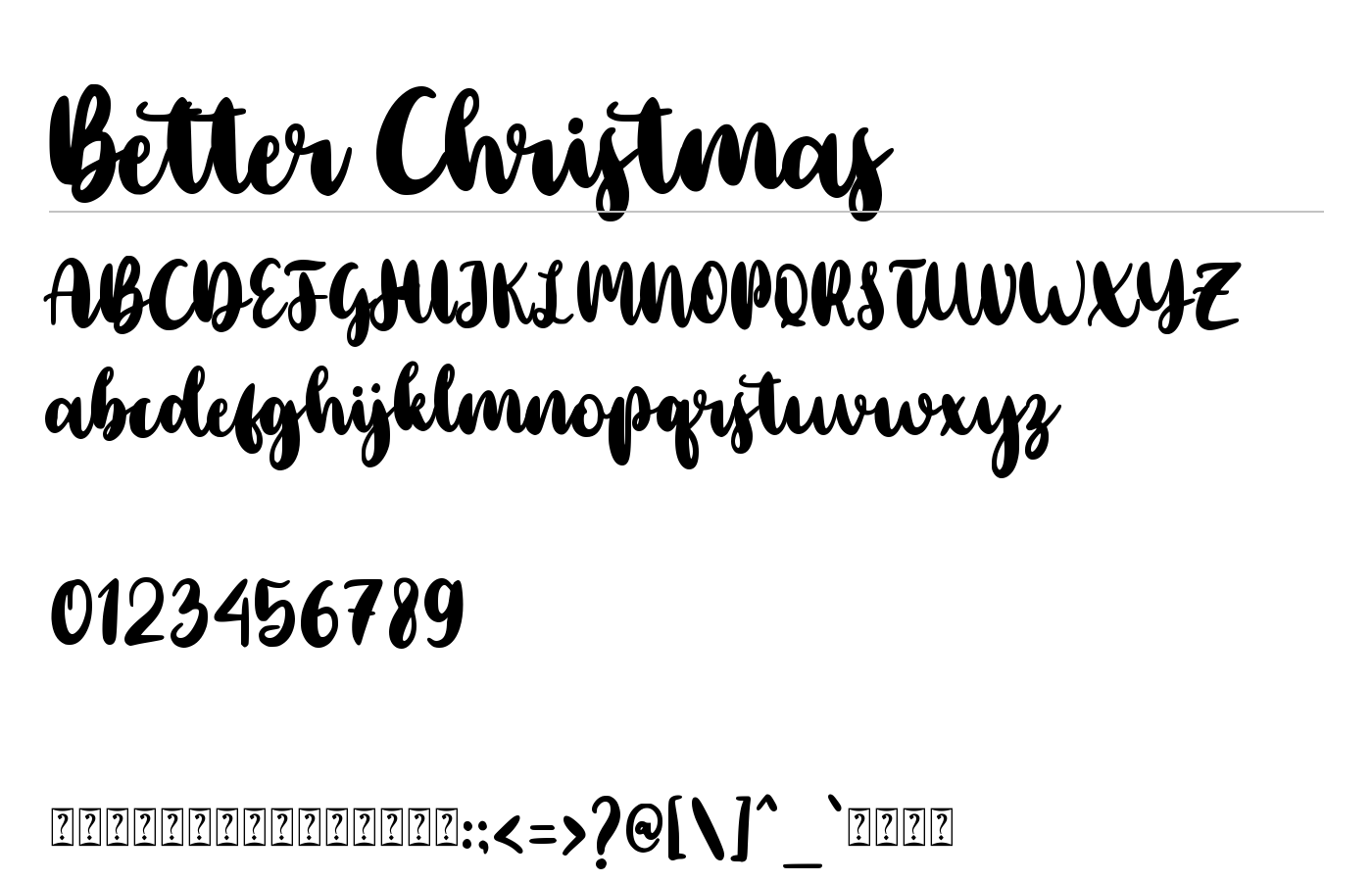
Better Christmas Font is a playful and bold script typeface with smooth, rounded strokes that evoke a warm, festive feel. Its lively and informal style makes it perfect for holiday-themed designs, greeting cards, and cheerful branding, bringing a cozy and joyful mood to any project. This font’s friendly letterforms and balanced weight offer great visibility for headlines and decorative text.
Better Christmas Font
About Better Christmas Font
| Font family | Better Christmas Font |
| Designer | Nox Studio 2022 ( Sarif Hidayat) |